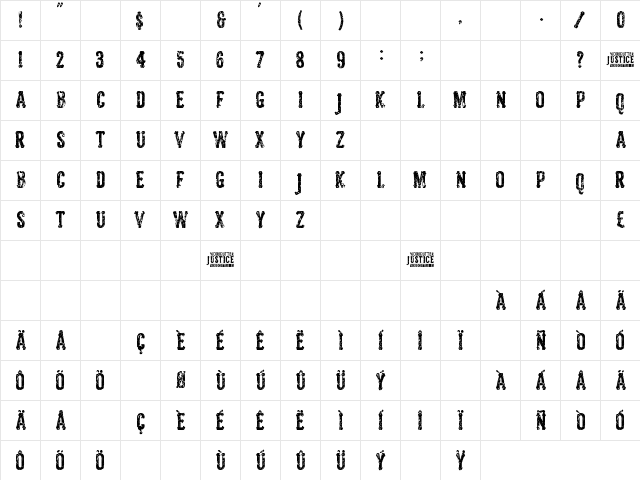
Complete Woodcutter Justice Regular glyph index. Displaying only characters natively supported by Woodcutter Justice Regular font.
Woodcutter Justice echoes the hand-painted signage and woodblock typography of the American frontier, with a warm, rugged personality.
Font Pairing: Combine Woodcutter Justice with a simple slab or neutral sans - period-accurate companions reinforce the vintage feel without competing for attention.
Pro Tip: Use Woodcutter Justice for short, impactful bursts of text - it shines in poster headlines and product names rather than extended copy.